Fun fonts can turn ordinary text into something lively and expressive, bringing energy and personality to your design. And sometimes, it’s a challenge to pick the best playful typefaces that bring a prominent character. Worry not, we’ve recommended 25 fonts that exude the fun vibes. Here they are.
Key Takeaways:
- Fun typefaces collaborate soft letterforms with unique, unexpected touches.
- Fun letterforms are perfect to target the casual approach in your design.
Escape the Rigid Typography with Fun Fonts!
From quirky shapes, unexpected boldness, and unique flair, check out our top playful fonts below!
1. Funy Beach
You can’t have a fun design without Funy Beach. This font adopts the balloon animal aesthetics but with a thicker form.
2. Muntea
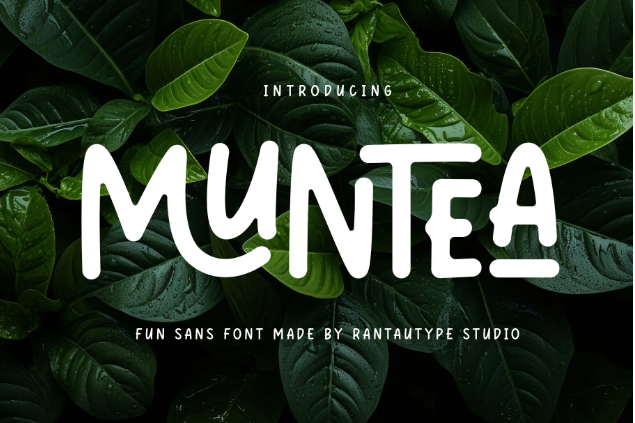
Muntea is the opposite of formal looks, with a more artistic flair than the typical sans serif fonts. If you need an intimate typeface with fun surprises, Muntea is the one.
3. Summer Dash
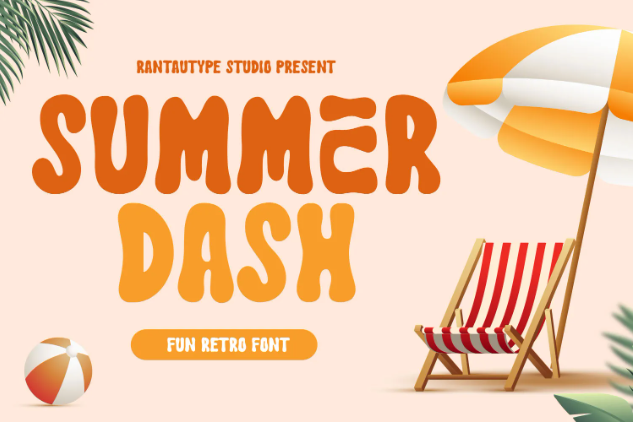
Summer Dash is the embodiment of fun fonts with its bulbous letterforms. Showcasing unpredictable letterforms, Summer Dash creates a fun visual for your audience.
4. Retronya
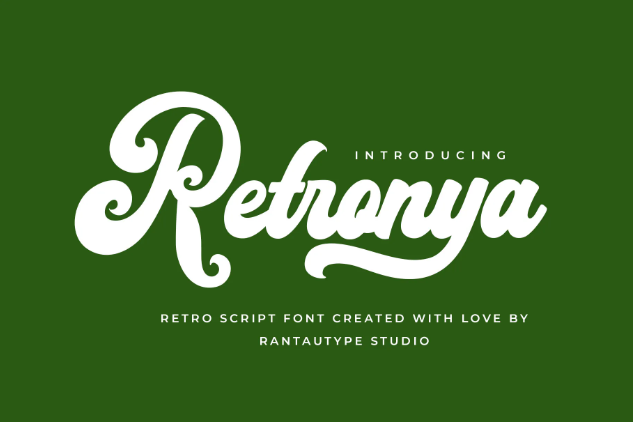
For a fresh touch of easy fun fonts, Retronya has got to be your go-to font. The beautiful retro script looks combined with generous twirls in Retronya will easily pop this typography.
5. Macorta
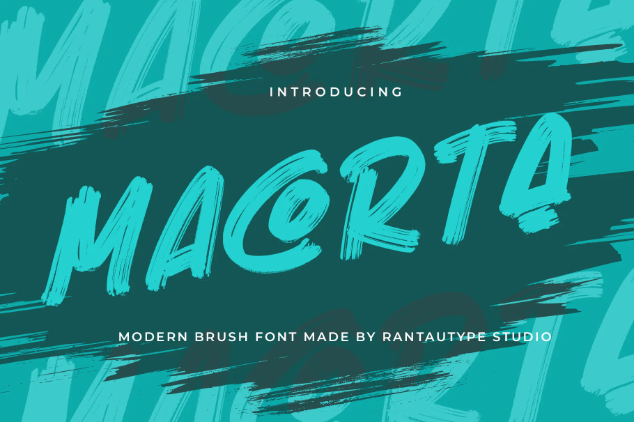
To create an eye-popping design, you need Macorta. It is a thick brush typeface with eccentric alternates, signaling people to see it.
6. Kaharsa
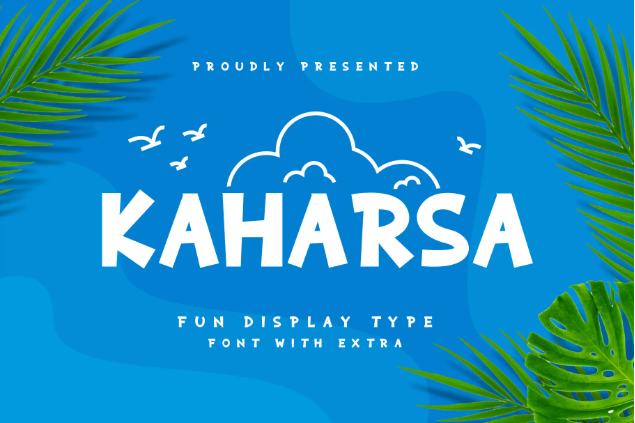
As the name suggests, Kaharsa in Sanskrit means happiness. Kaharsa is a fun display font depicting paper cut-outs, with both cases and some extra dingbats.
7. Bepory
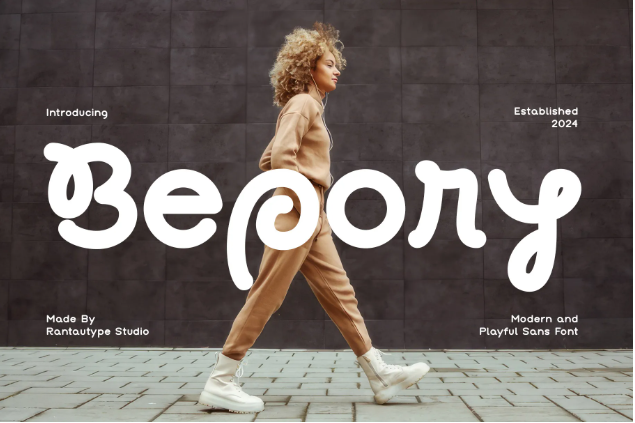
Bepory is included in the fun fonts alphabet category. Mixing up handwritten, sans serif, and script looks, Bepory touches many people’s taste and allows you to create a unique typography.
8. Shiny Land
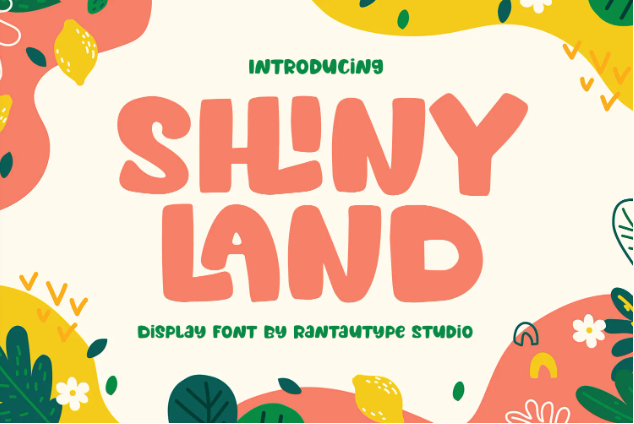
Shiny Land elevates a typical cartoon fun font with its wide stature. Although leaning towards the chubby side, Shiny Land is highly readable, even more fun than others.
9. Runbom
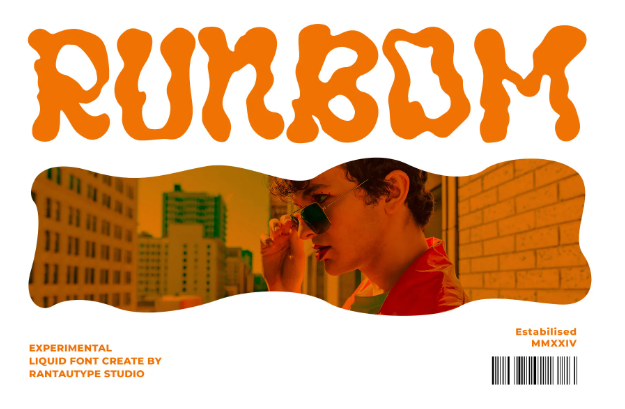
Runbom depicts rippled jellies in alphabet form. An experimental typeface like Runbom is an easy option to create a unique, head-turner design.
10. Viraly
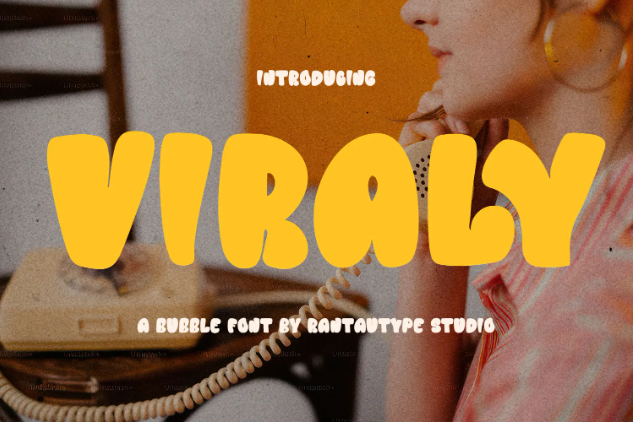
Viraly is more than just a bubble typeface. This fun, chubby font has unique proportions in certain letters, adding an eye-candy effect in Viraly’s aesthetics.
11. Groovy Dream
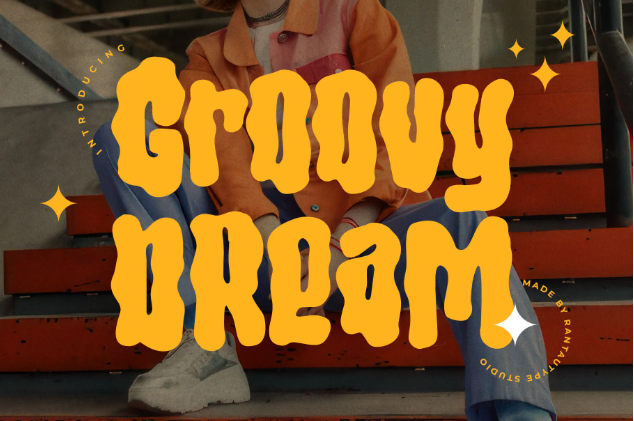
A font with a rippled effect like Groovy Dream can easily become the centre of attention for your design. Additionally, Groovy Dream carries more thematic, nostalgic aesthetics.
12. Easy Bond
Easy Bond takes a display, serif typeface to a whole other place, instantly creating chill vibes at a glance. Its retro vibe and cartoonish letters guarantee a place in your fun design project.
13. Molger
With fun fonts in mind, Molger certainly expands the scope. The intricate letterforms of Molger create a beautiful effect and assure your audience where the center of attention is.
14. Salish Lodge
If you’re into the chill, relaxed vibe, Salish Lodge is the font you need. Salish Lodge uses dynamic thickness while creating new looks in its letterforms.
15. Ratego
Unlike the typical slab serifs, Ratego blends some curvy lines in its letters. Showcasing a nostalgic look, Ratego blends its careful, delicate stroke with contrasting boldness.
16. Molla
For a more childish and chic typeface, use Molla. The cute Molla embraces imperfect letter placement, creating a natural feel while highlighting its clean, modern strokes.
17. The Riola
When thinking about the modern casual fonts, the Riola will come to mind. The versatility of this font excels beyond its letterforms, you can mix both cases effortlessly.
18. Hope City
Hope City displays a unique balance with precise cuts with chaotic tape-like placement that makes this a fun font.
19. Holiday Delight
Rather than bold, Holiday Delight chooses a natural handwritten persona. Holiday Delight accentuates the difference between letter heights, creating a highly readable font.
20. Doolan
Doolan’s new taste in typography displays bone-like strokes with unexpected cuts and blunt tips. With this style, Doolan teeters the line between pirate and Japanese aesthetics.
21. Obsesi
At a glance, Obsesi uses the natural handwritten style, even leaning into the imperfect stroke lines. But, looking closer, Obsesi’s letter has a precise look and kerning for better readability.